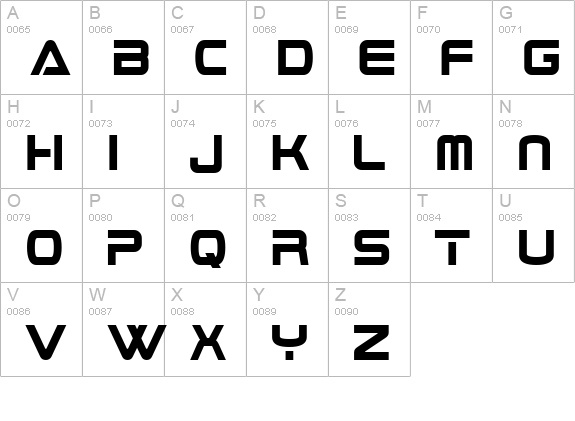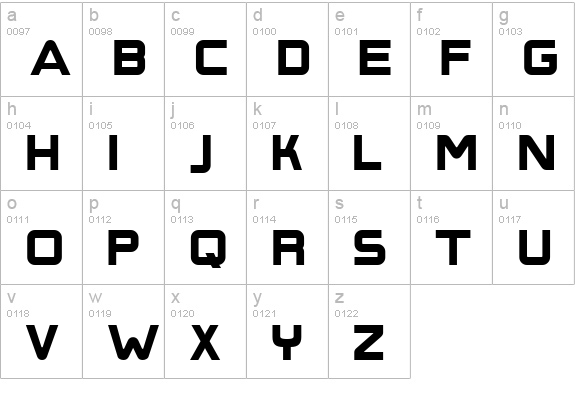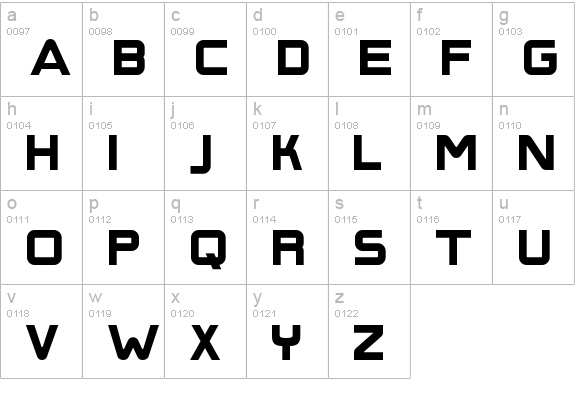
BoomBox Font Details
BoomBox font is a dynamic and eye-catching display typeface that exudes a sense of energy and excitement. Its bold and playful design makes it perfect for grabbing attention and adding a touch of fun to any project. The letters are stylishly crafted with a mix of sharp angles and rounded edges, giving BoomBox a modern and urban look. What's even more exciting is that BoomBox font is available for free download at FontsMarket.com! This means you can easily access this versatile font and use it in your designs without any hassle. Whether you're working on a poster, logo, or social media graphic, BoomBox font is sure to make a statement and leave a lasting impression. Get your hands on this vibrant typeface today and let your creativity shine!